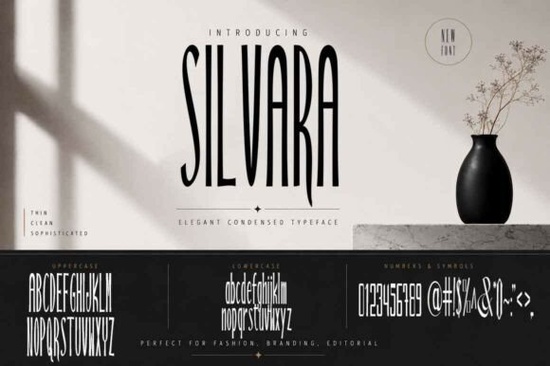
Looking for a display font that makes a strong visual statement without feeling cluttered? Silvara Font is a bold, stylish typeface built for projects that demand attention from logos and product packaging to t-shirt designs, posters, and invitations. It works especially well when you want a font with personality that still stays readable.
What makes Silvara stand out from other display fonts?
Silvara is not your typical decorative font. It has a bold weight and unique letter shapes that give it character without sacrificing legibility. Many display fonts lean too far into ornamentation, making them hard to read at smaller sizes. Silvara strikes a balance it looks great as a headline or title while remaining clear enough for short phrases on labels or packaging.
Its design leans toward a clean, sans-serif inspired structure. If you're already working with modern typefaces in your projects, Silvara pairs well with simpler body fonts. For example, you could use Silvara for headings and pair it with a softer option like the Matcha Cream font for supporting text. This kind of contrast helps your designs feel layered and intentional.
Who is this font best suited for?
Silvara works well for a range of creative professionals and hobbyists:
- Print-on-demand sellers who need standout t-shirt typography and quote designs
- Small business owners creating logos, labels, and branded packaging
- Graphic designers working on posters, banners, and social media graphics
- Crafters and DIY enthusiasts making invitations, greeting cards, and wall art
- Content creators looking for bold text styles for thumbnails or digital products
Where does Silvara work best?
Here are some practical use cases to consider:
- Logo design The bold weight gives logos a confident, modern feel
- Product packaging Stand out on shelves with strong typography
- T-shirt designs Perfect for quote-based and typographic apparel
- Posters and flyers Great for event promotion and wall art prints
- Social media graphics Bold enough to catch eyes in a fast-scrolling feed
- Invitations and cards Adds a stylish touch to wedding or party invites
One thing to keep in mind: because Silvara is a display font, it's not ideal for long paragraphs or body copy. Use it where it shines headlines, titles, short phrases, and focal text elements.
How does it compare to other fonts on Creative Fabrica?
Creative Fabrica has thousands of fonts available, and it helps to understand where Silvara fits. Compared to highly decorative or script fonts, Silvara is more versatile. It doesn't rely on swashes or flourishes, so it adapts to different design styles more easily.
Quick tips for using Silvara in your designs
- Use it at larger sizes where its bold shapes can breathe
- Pair it with a simple, clean sans-serif for body text
- Stick to short text blocks headlines, quotes, and labels
- Experiment with letter spacing for different visual effects
- Test it on both light and dark backgrounds to find the best contrast